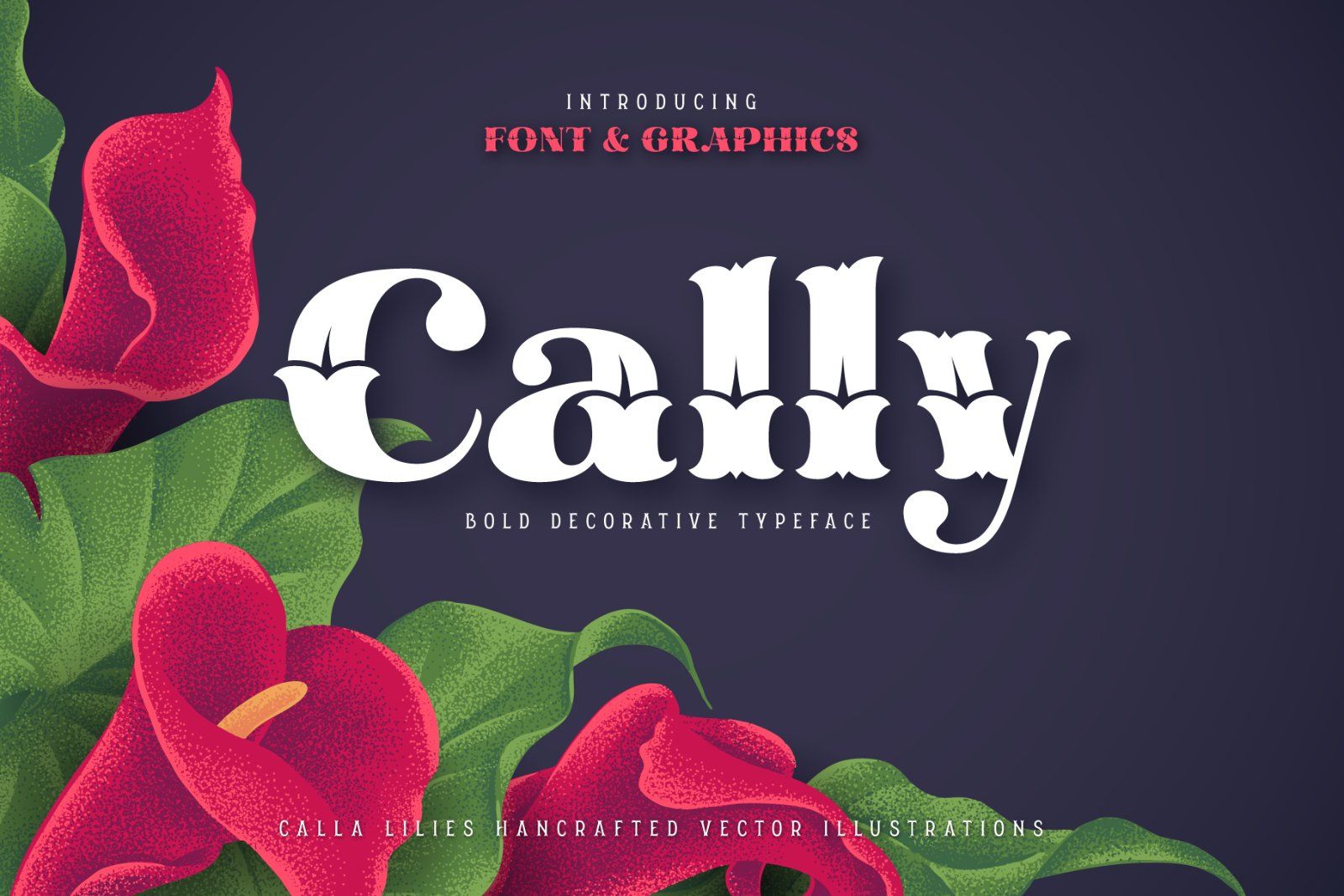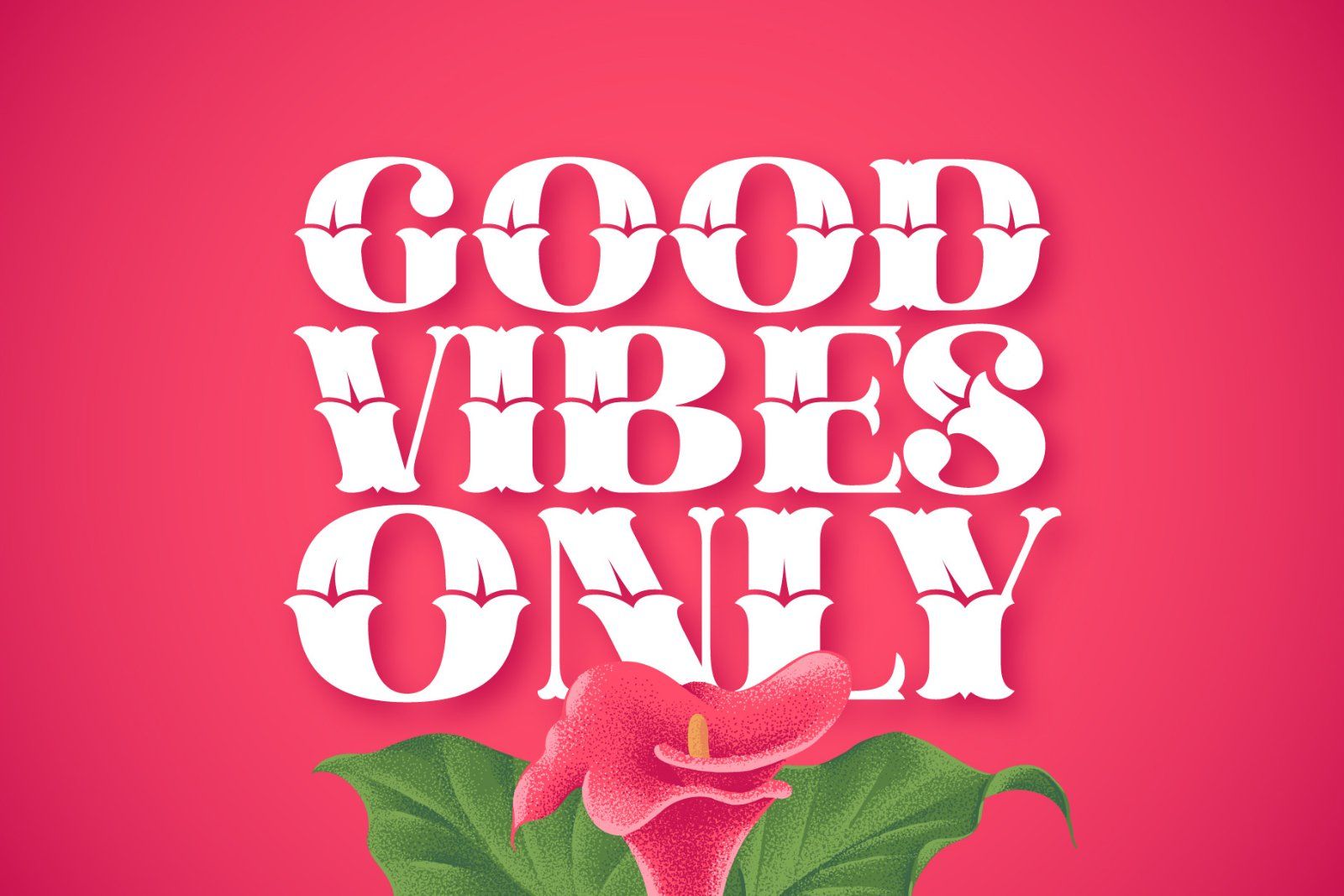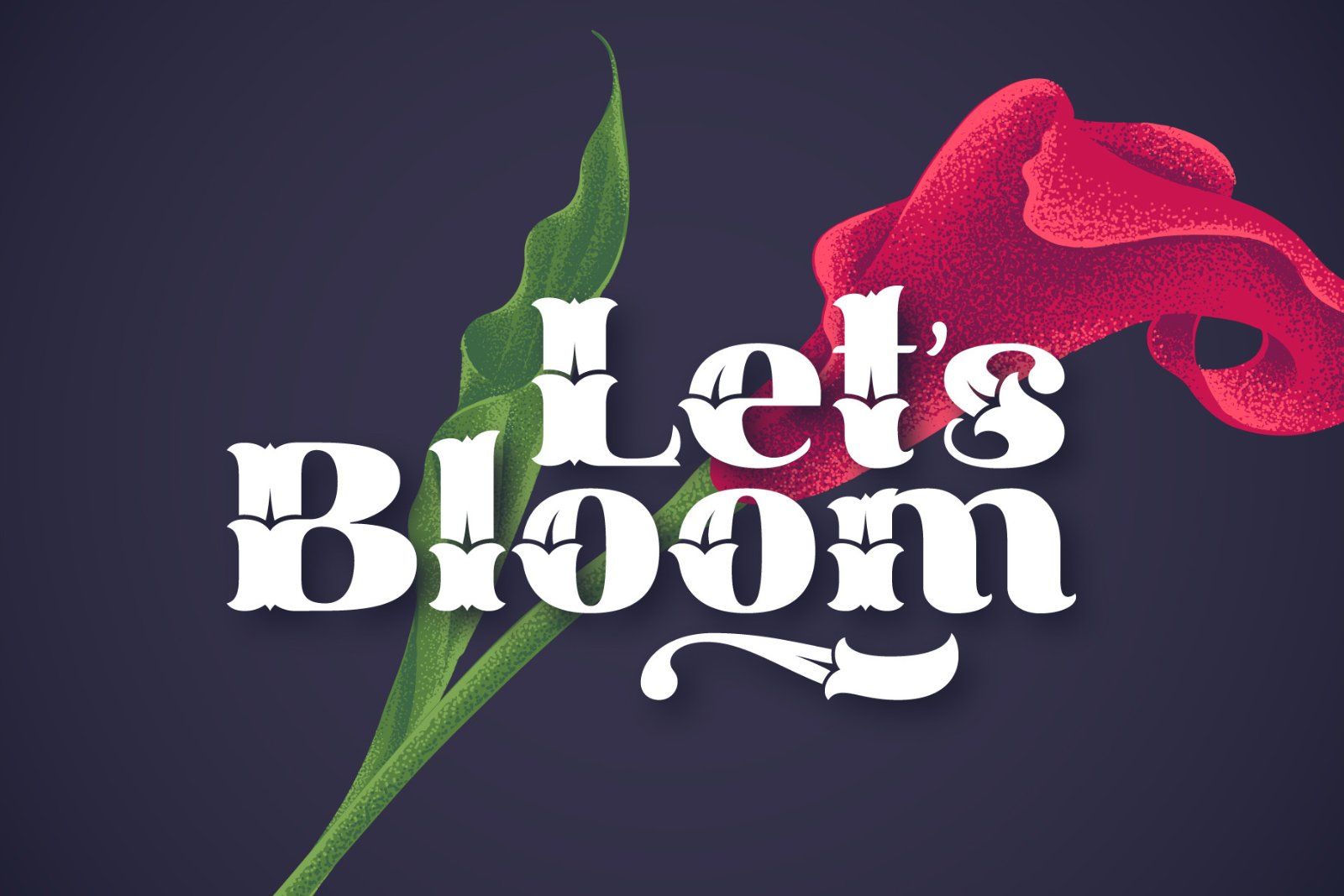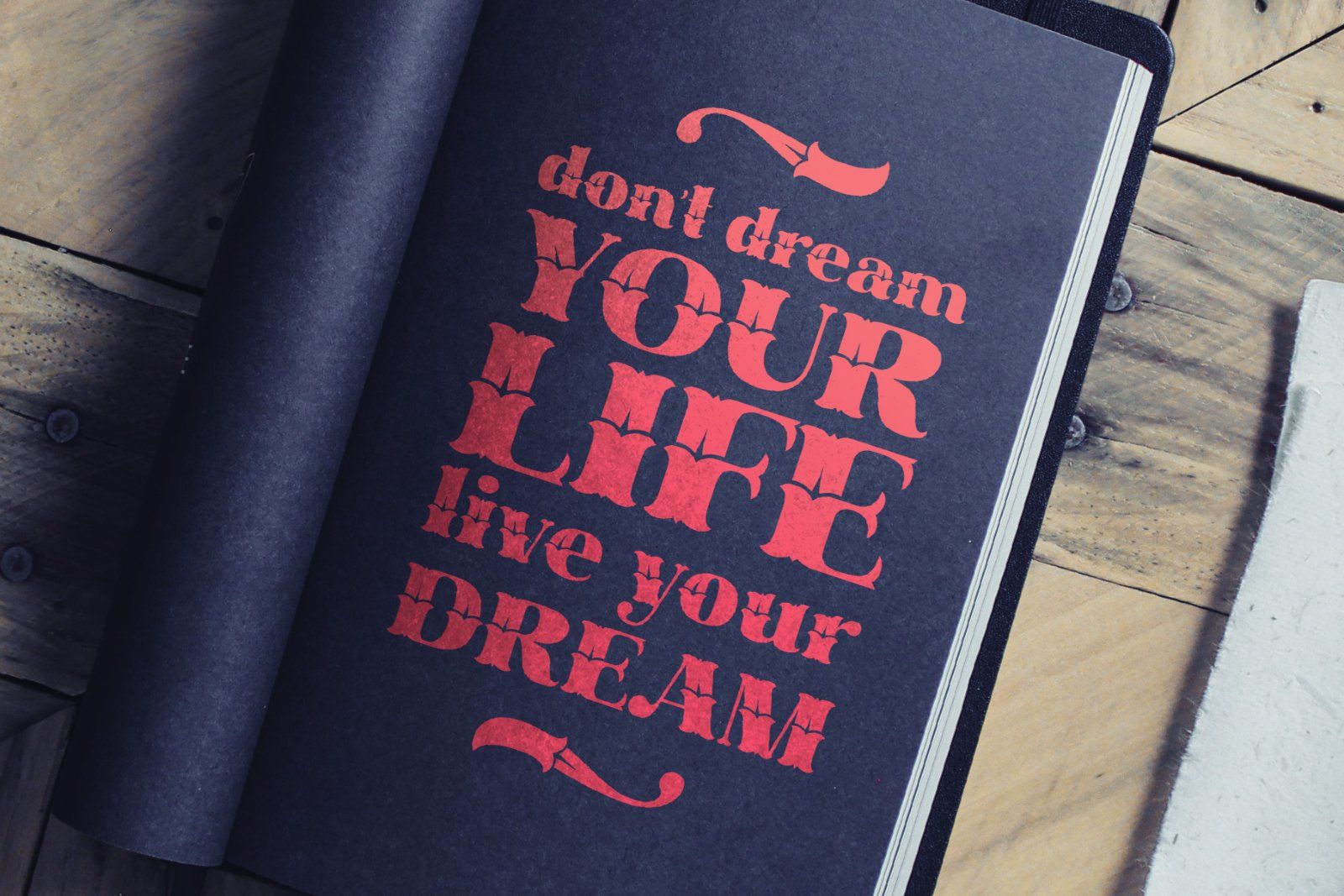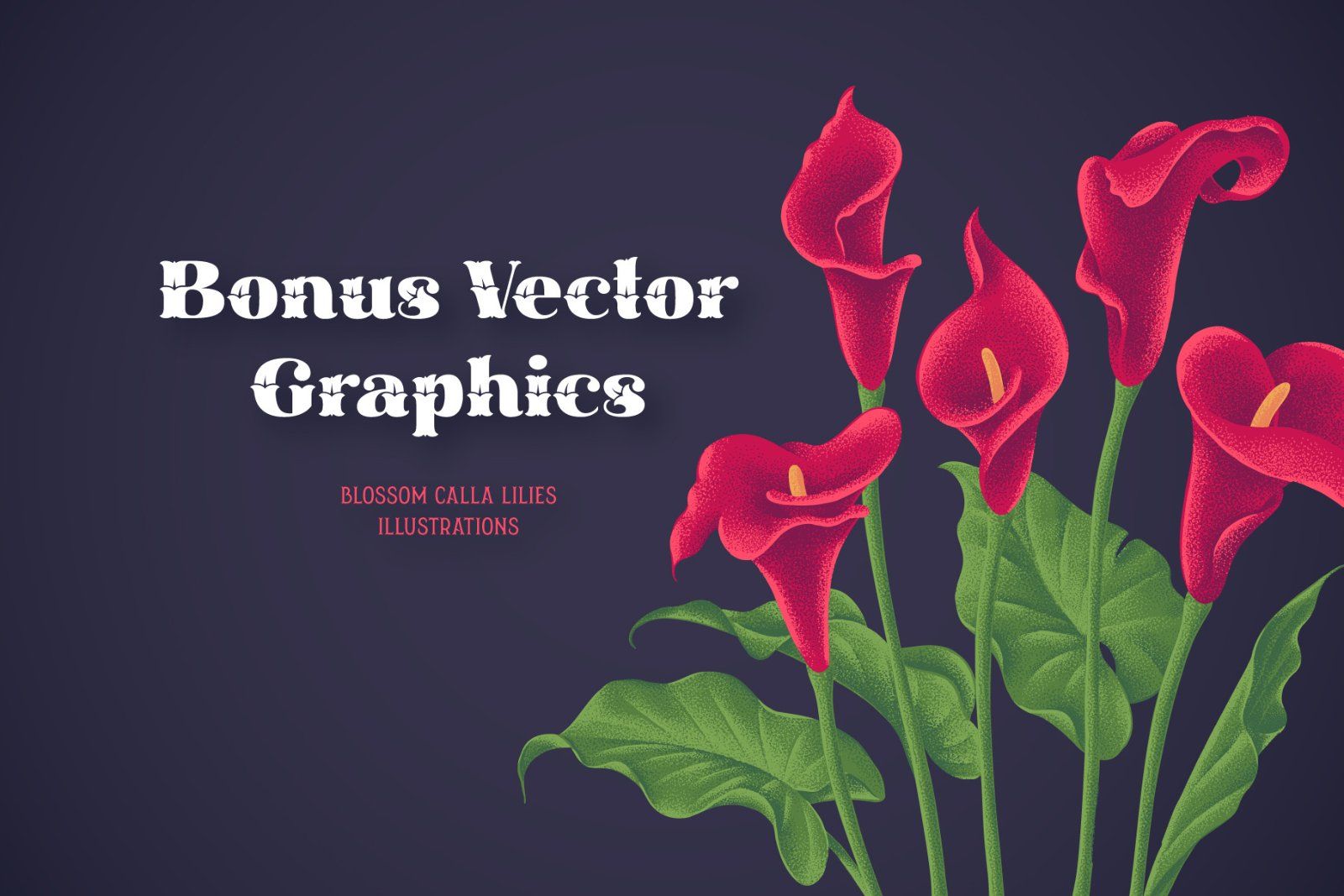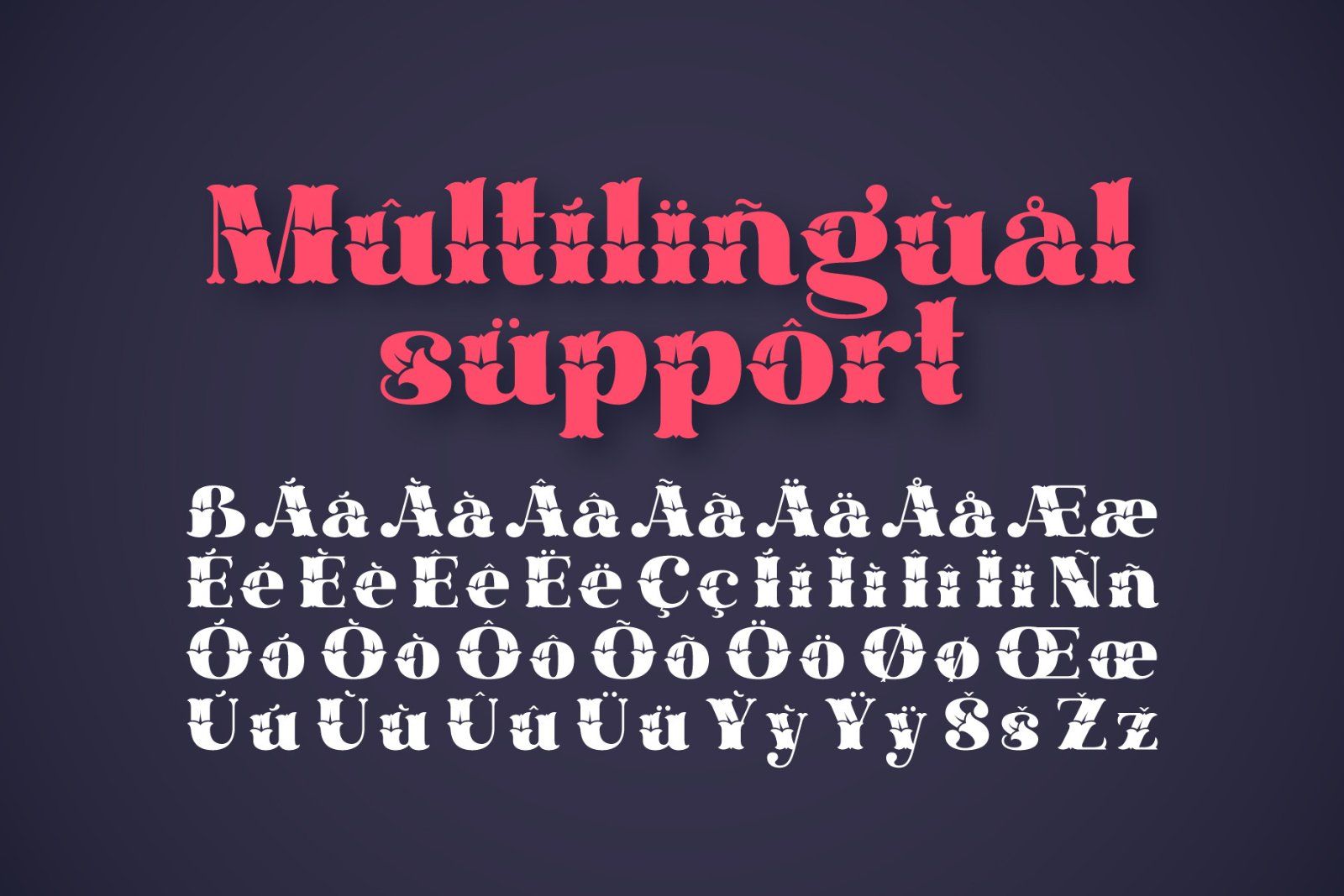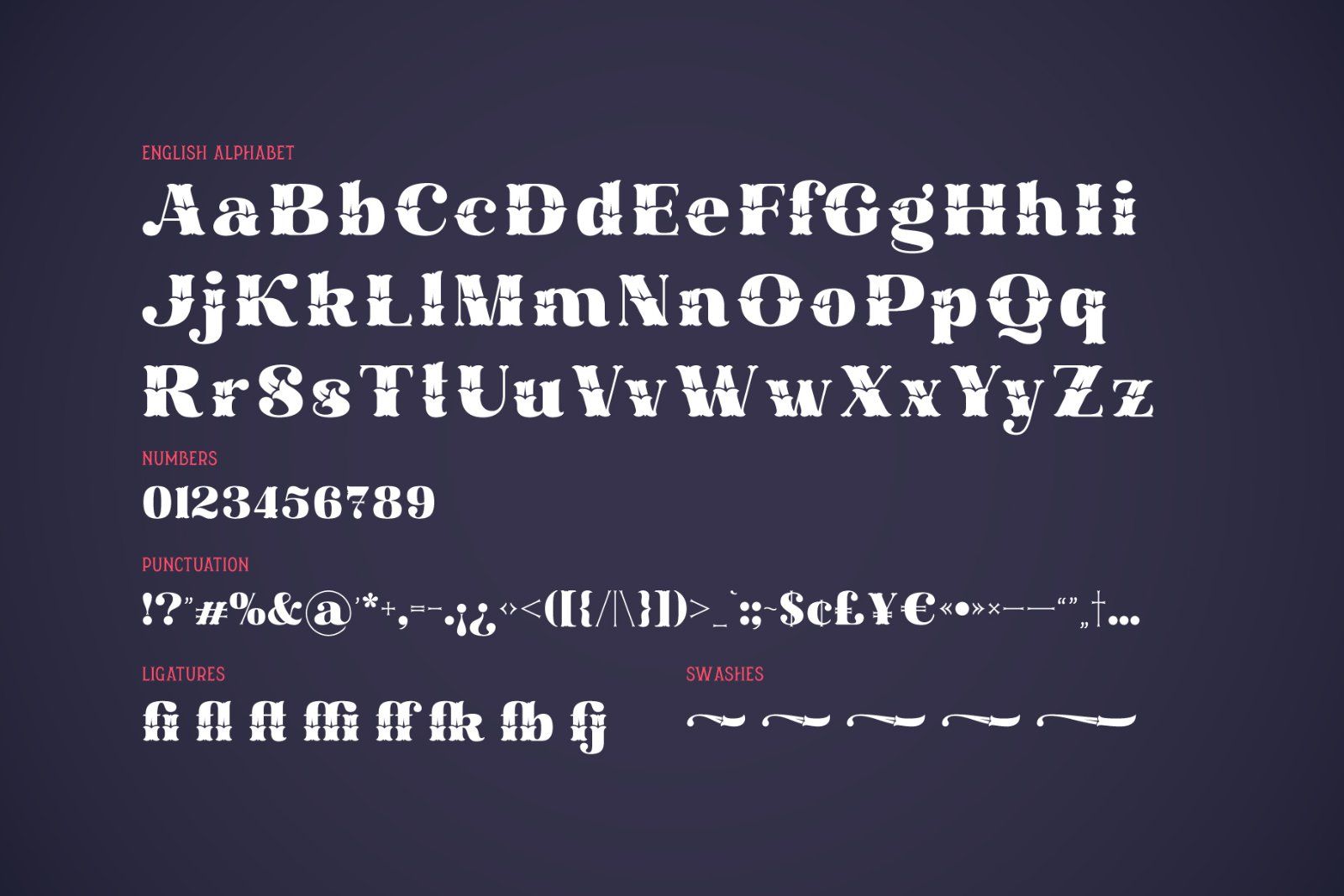
Hello, introducing a bold font named Cally. It's a classic look typeface with decorative vintage elements. It suits perfectly for label design and for various lettering postcards and invitations. Calla font includes English alphabet, punctuation, numbers and west European multilingual characters (check out the screenshots with all available characters).
Also there are few ligatures and swashes. To access swash glyphs, just type underscore character and number 1-5, like this _1. Using "standard ligature" feature this symbols will be automatically replaced with one of the swash symbols.
And finally this package comes with a nice bonus - handcrafted vector illustrations of a beautiful calla lilies (also available in png format).